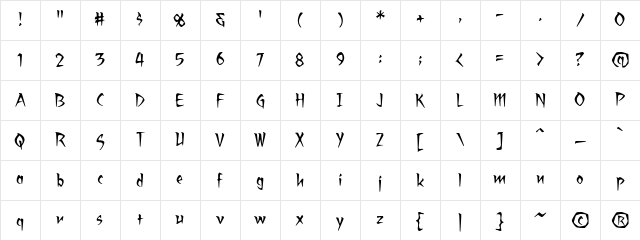
RagingRedLotus BB Regular
Foundry: Nate Piekos. Blambot.com
Designer: Nate Piekos
RagingRedLotus BB Family
Design Context for RagingRedLotus BB
RagingRedLotus BB is a composed and adaptable typeface that performs quietly and consistently across a wide range of design contexts.
Who designed the RagingRedLotus BB Regular font?